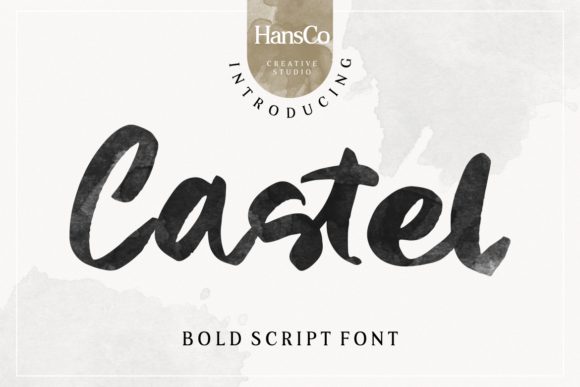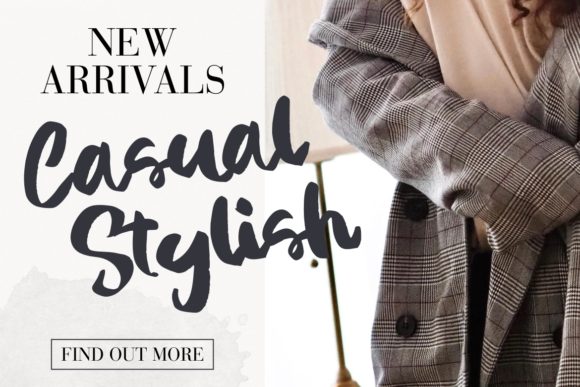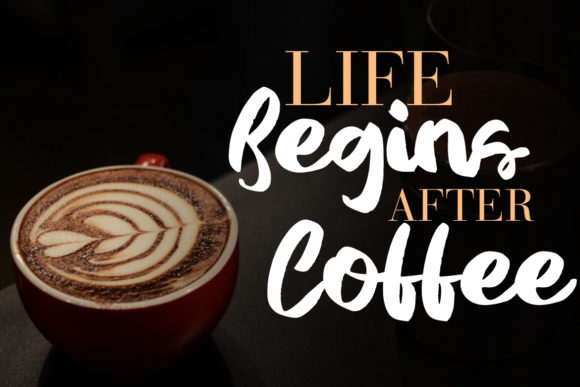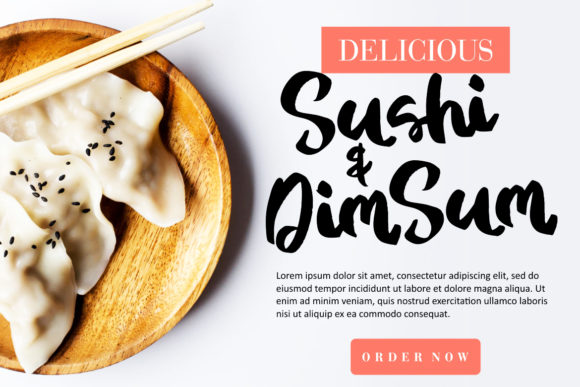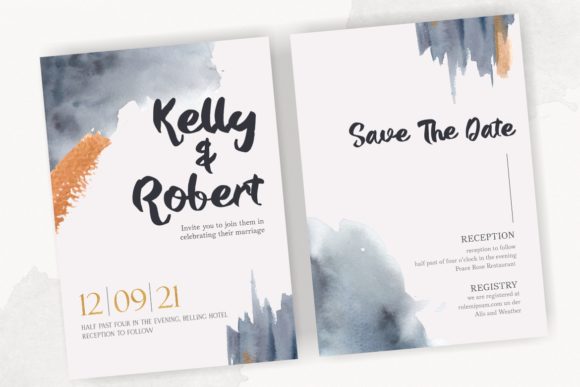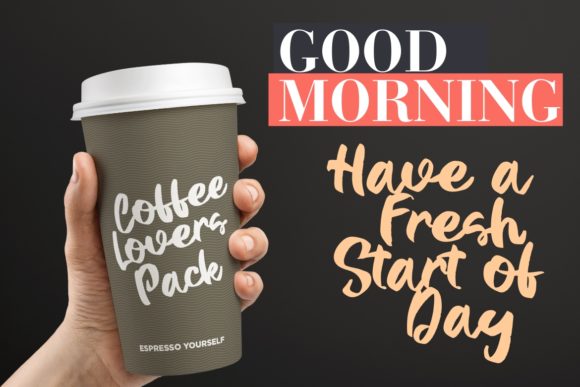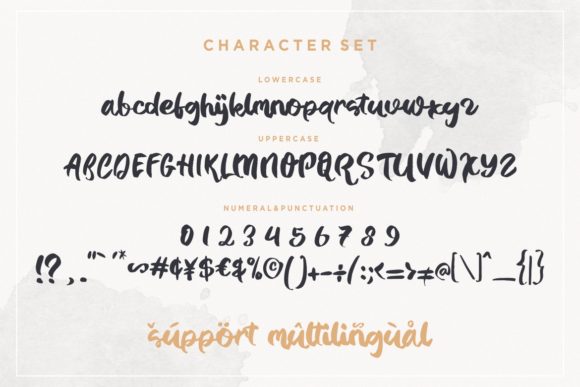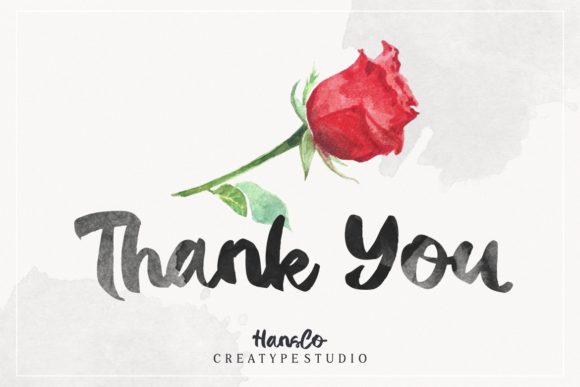
Castel Font
About Castel Font
Castel is a gorgeous handwritten font that’s great for adding a dash of authenticity to your next design idea. Get inspired by its unique charm, and turn any design project into a true standout!